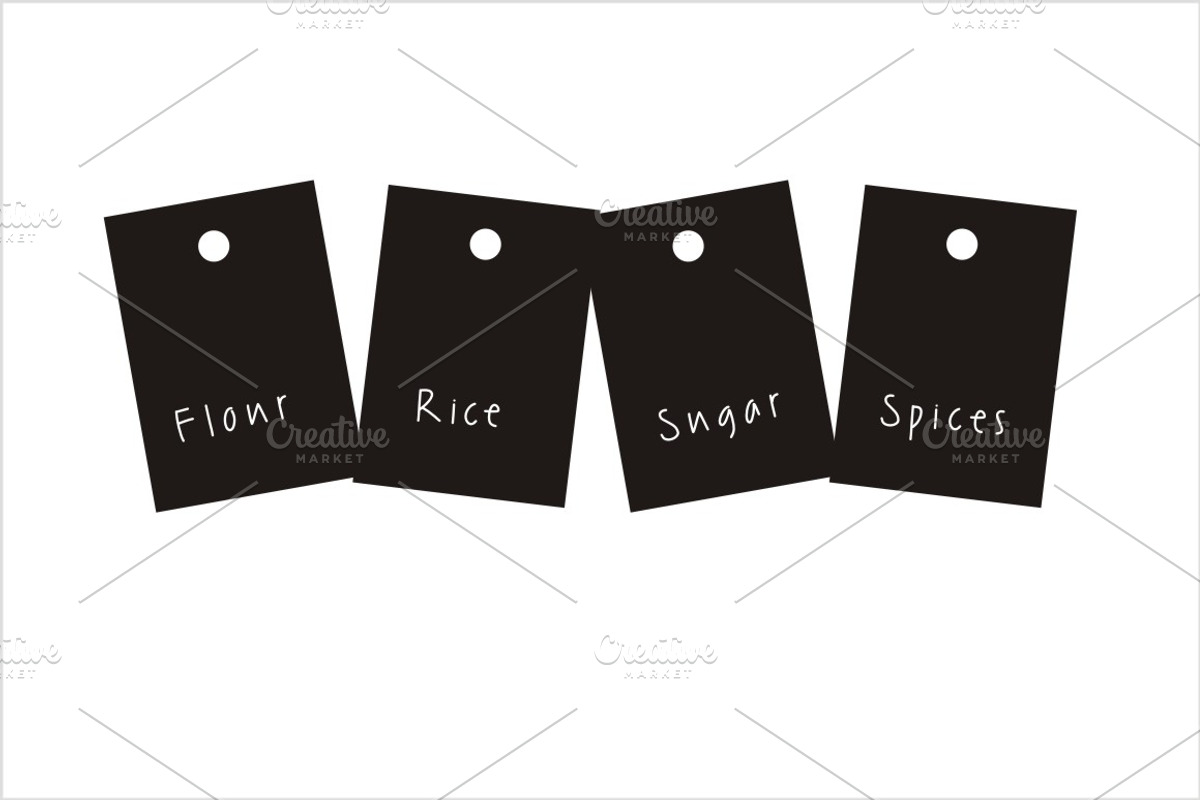
Barrel Font
Barrel Font by Fonts & Printables is a font selected for branding, posters, packaging, typography.
Why Barrel Font is worth a look
Barrel Font by Fonts & Printables fits naturally into Branding, posters, packaging, typography.